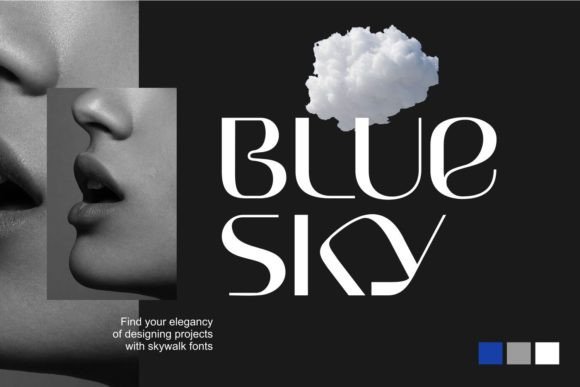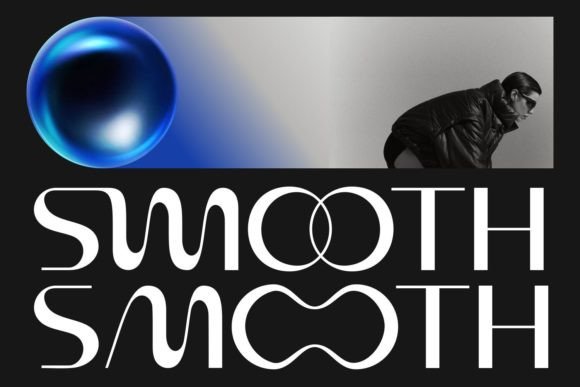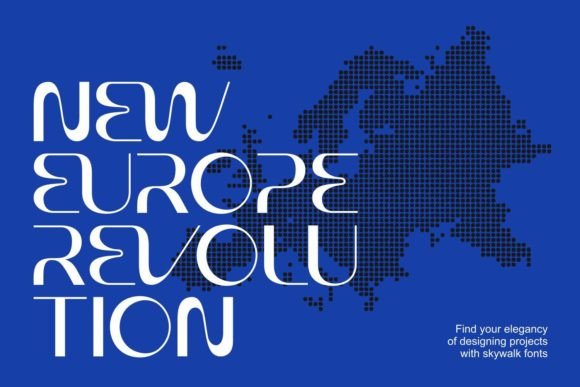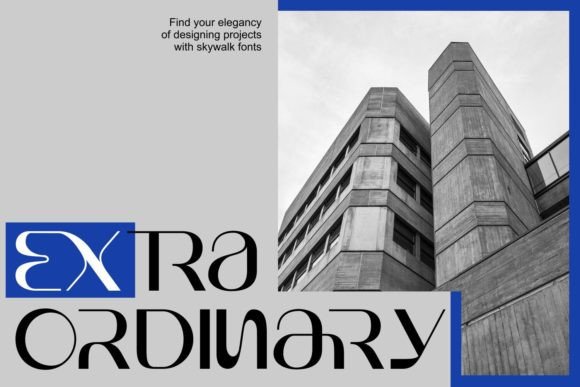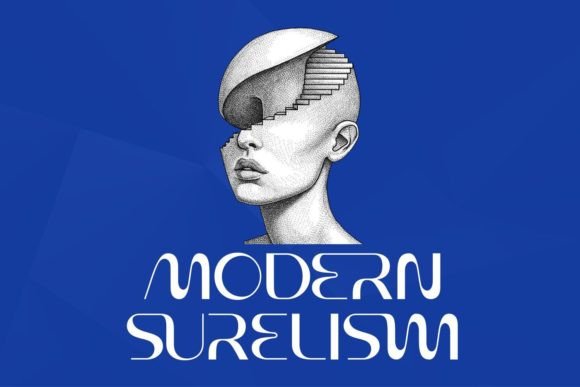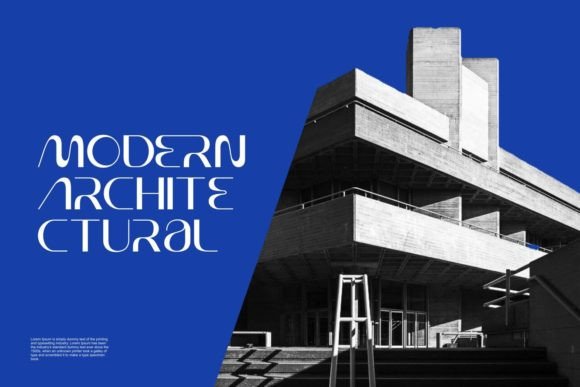
Introduction to Sky Walk Font
Unleash the future with the ‘Sky Walk’ font, a distinctive blend of futuristic vision and elegance.
Crafted with thicker and thinner strokes in a unique serif style, it truly exemplifies versatility and is ready to be embraced by both colossal and petite projects Sky Walk finds its roots in the Moon Walk font, another hot-selling creation from our collection.
Key Features of Sky Walk Font
Why Choose Sky Walk Font?
Sky Walk Font offers exceptional quality and versatility, making it a valuable addition to your design toolkit. Whether you’re creating for personal projects or commercial use, Sky Walk Font delivers professional results.